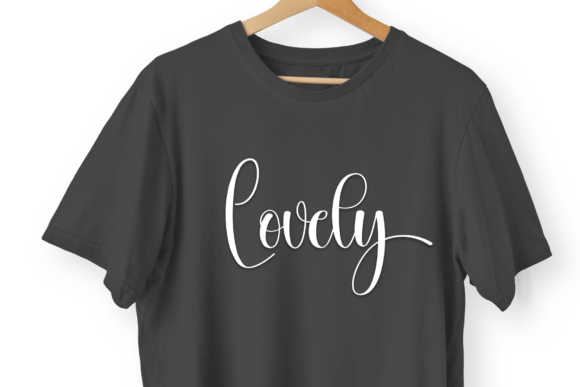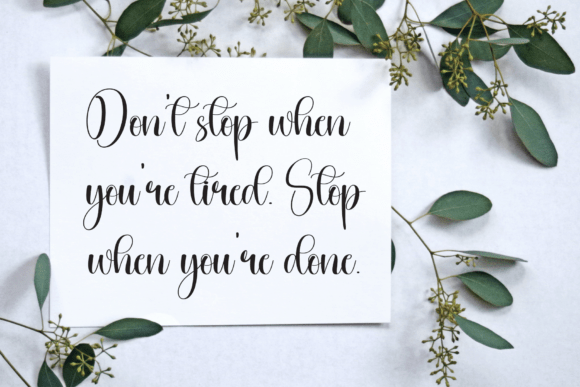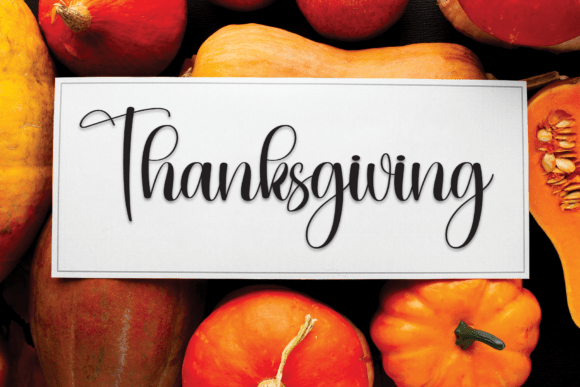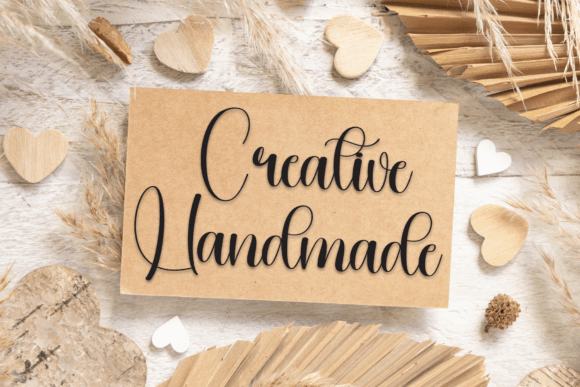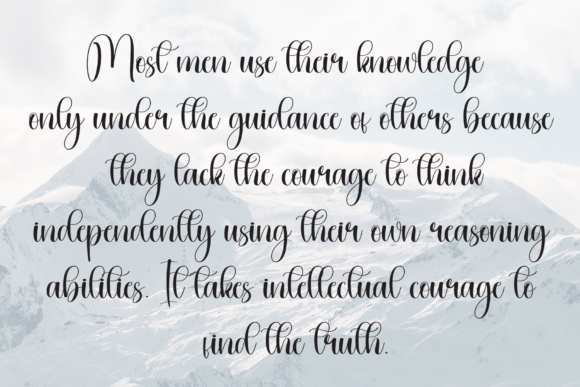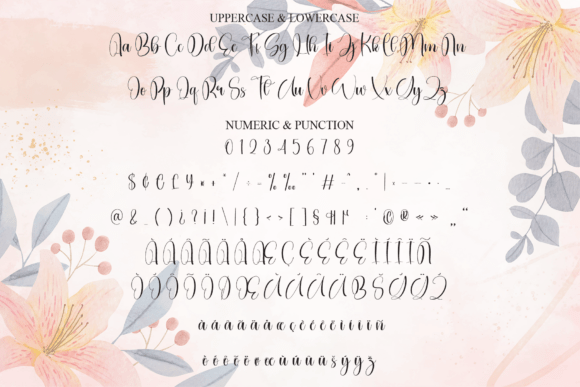
Greeting Font: Elevate Your Designs with a Fresh and Delightful Handwritten Style
In the world of typography, a well-chosen font can make all the difference in elevating your designs from ordinary to extraordinary. If you’re a designer, crafty DIY enthusiast, or social media influencer looking to add a touch of elegance and playfulness to your creative work, look no further than the Greeting Font. This beautiful, handwritten font is designed to bring a cheerful and sophisticated vibe to a wide range of projects, from branding and logos to greeting cards, packaging, and social media posts.
The Characteristics of Greeting Font
So, what makes the Greeting Font so special? For starters, its smooth curves and tall letterforms give it a refined, sophisticated look that’s perfect for designs that require a touch of elegance. At the same time, its playful charm and whimsical feel make it ideal for projects that need a dash of personality and fun. Whether you’re creating a logo for a new business, designing a greeting card for a special occasion, or crafting a social media post that stands out from the crowd, the Greeting Font is sure to impress.
One of the best things about the Greeting Font is its versatility. Its unique blend of elegance and playfulness makes it suitable for a wide range of design applications, including:
- Branding and Logos: Create a lasting impression with a custom logo that showcases your brand’s personality and style.
- Greeting Cards: Add a personal touch to your cards with a beautiful, handwritten font that’s sure to delight.
- Packaging: Stand out on store shelves with eye-catching packaging that features the Greeting Font.
- Social Media Posts: Elevate your social media game with stylish, engaging posts that showcase your creativity.
Why Choose the Greeting Font?
With so many fonts to choose from, why should you opt for the Greeting Font? Here are just a few reasons why designers and crafters love this beautiful, handwritten font:
- Unique and Eye-Catching: The Greeting Font is a fresh and delightful take on traditional handwritten fonts, making it sure to grab attention.
- Easy to Read: Despite its elegant feel, the Greeting Font is highly legible, making it perfect for designs that require a clear message.
- Customizable: With its smooth curves and playful charm, the Greeting Font is highly customizable, allowing you to tailor it to your specific design needs.
In conclusion, the Greeting Font is a beautiful, handwritten font that’s perfect for designers, crafters, and social media enthusiasts looking to add a touch of elegance and playfulness to their creative work. With its smooth curves, tall letterforms, and playful charm, it’s sure to elevate your designs and make them stand out from the crowd. So why wait? Give the Greeting Font a try today and see the difference it can make in your designs!